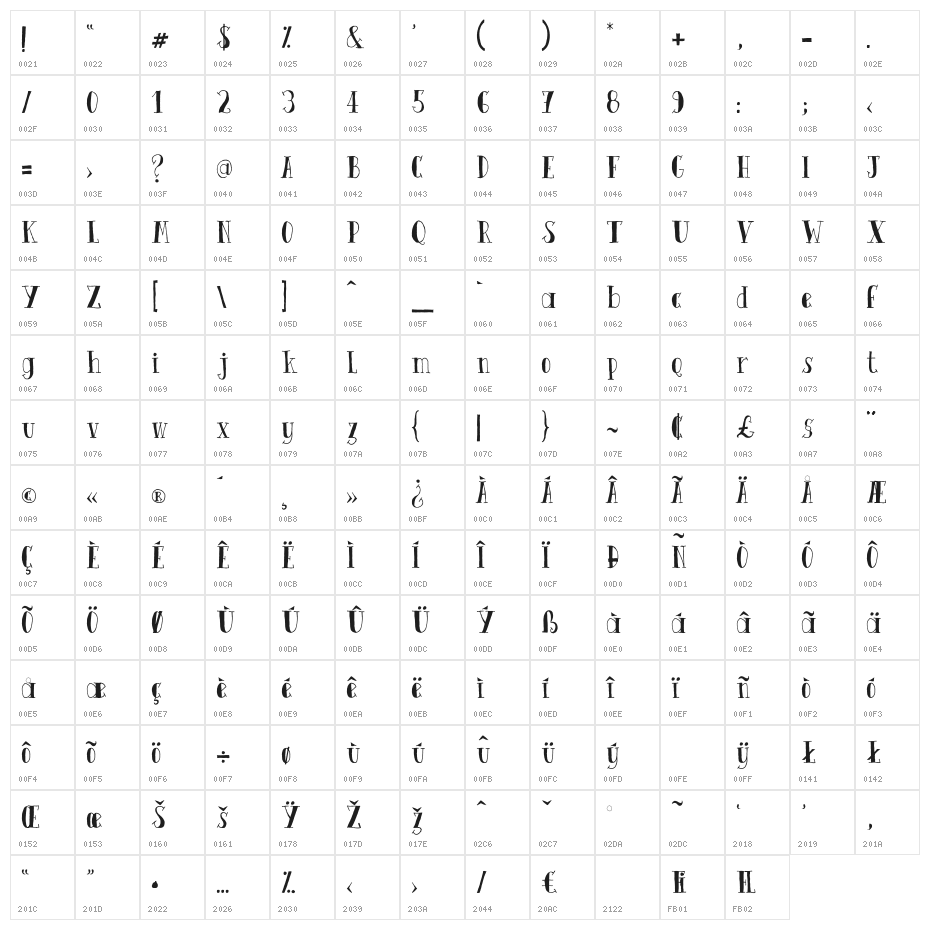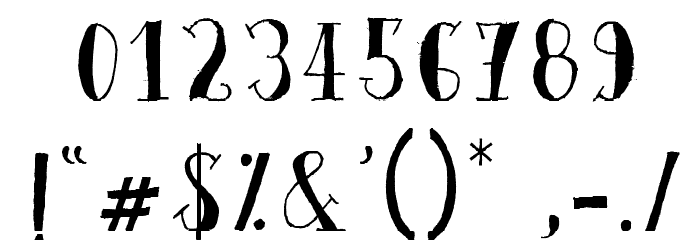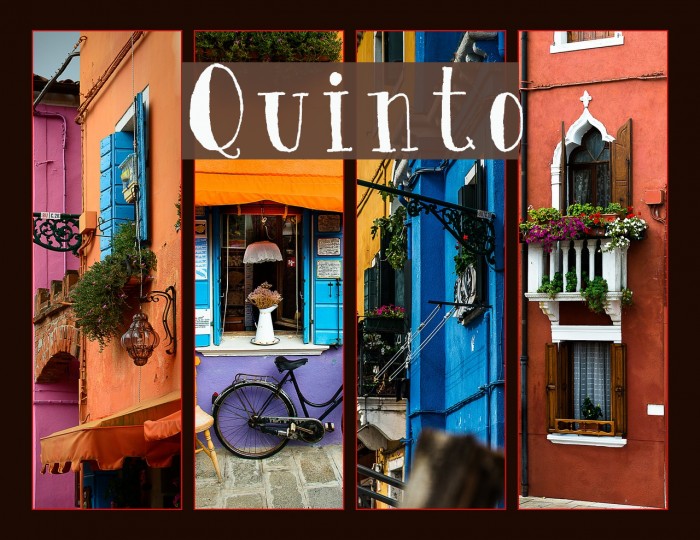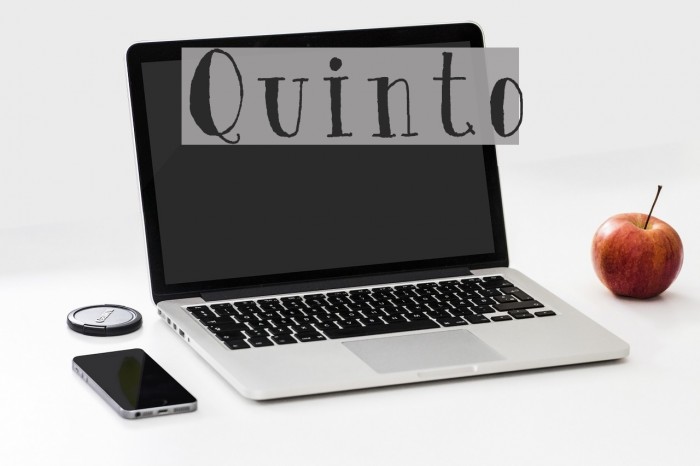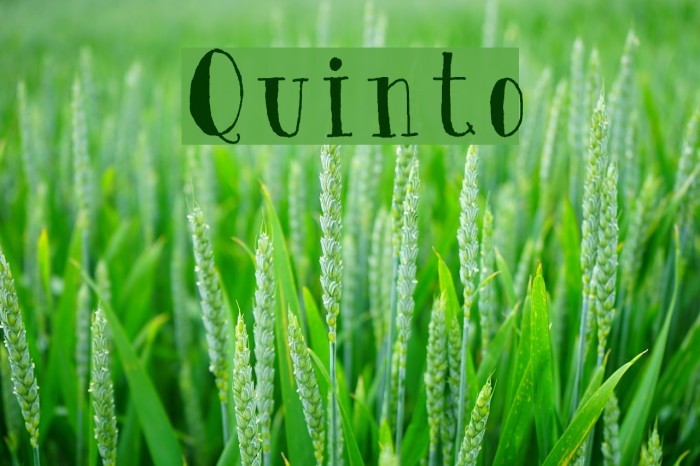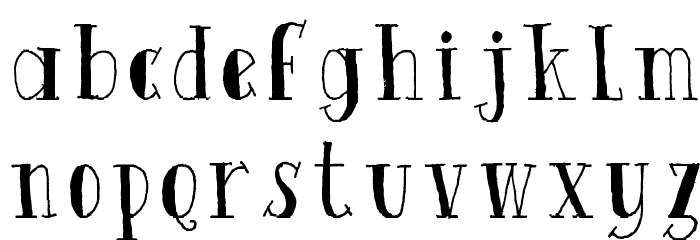
Quinto Font
Quinto Description
This font features a distinct, hand-drawn appearance with a playful yet sophisticated style. The characters exhibit a slightly irregular, organic quality, giving them a unique charm. The uppercase letters are bold and prominent, while the lowercase letters maintain a consistent flow with subtle variations in stroke width. The numerals are equally expressive, matching the overall whimsical aesthetic. Special characters are creatively designed, adding to the font's artistic appeal. This font is ideal for projects that require a touch of creativity and individuality, such as branding, invitations, and artistic posters.
| Proposed Projects | Ideal for branding, invitations, artistic posters, and creative projects. |